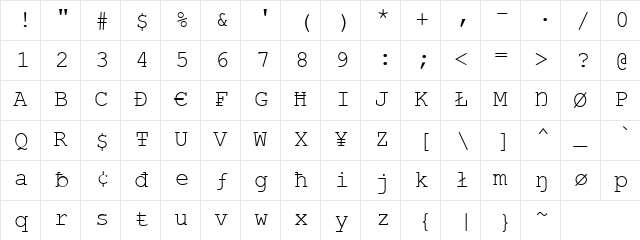
Ajay Vijay is a composed and adaptable typeface that performs quietly and consistently across a wide range of design contexts.
Pro Tip: Use Ajay Vijay in both headline and body roles to test its range before committing to a single application.